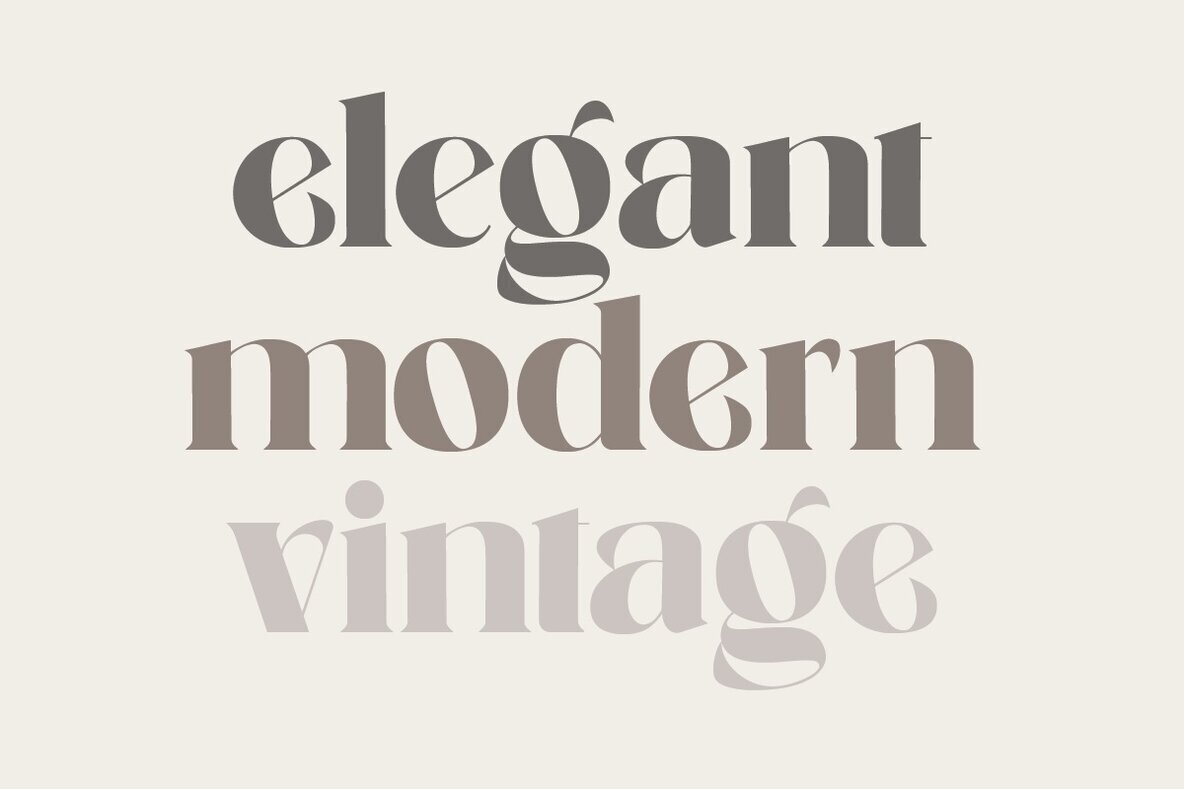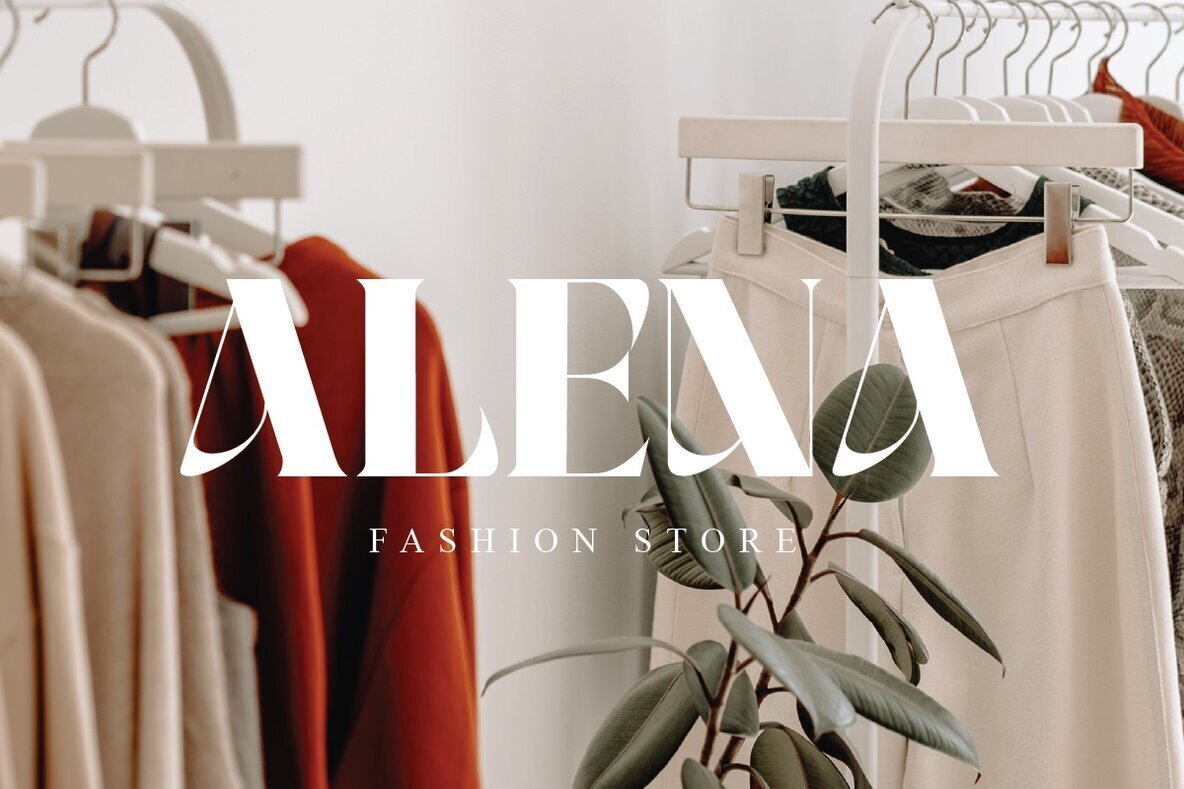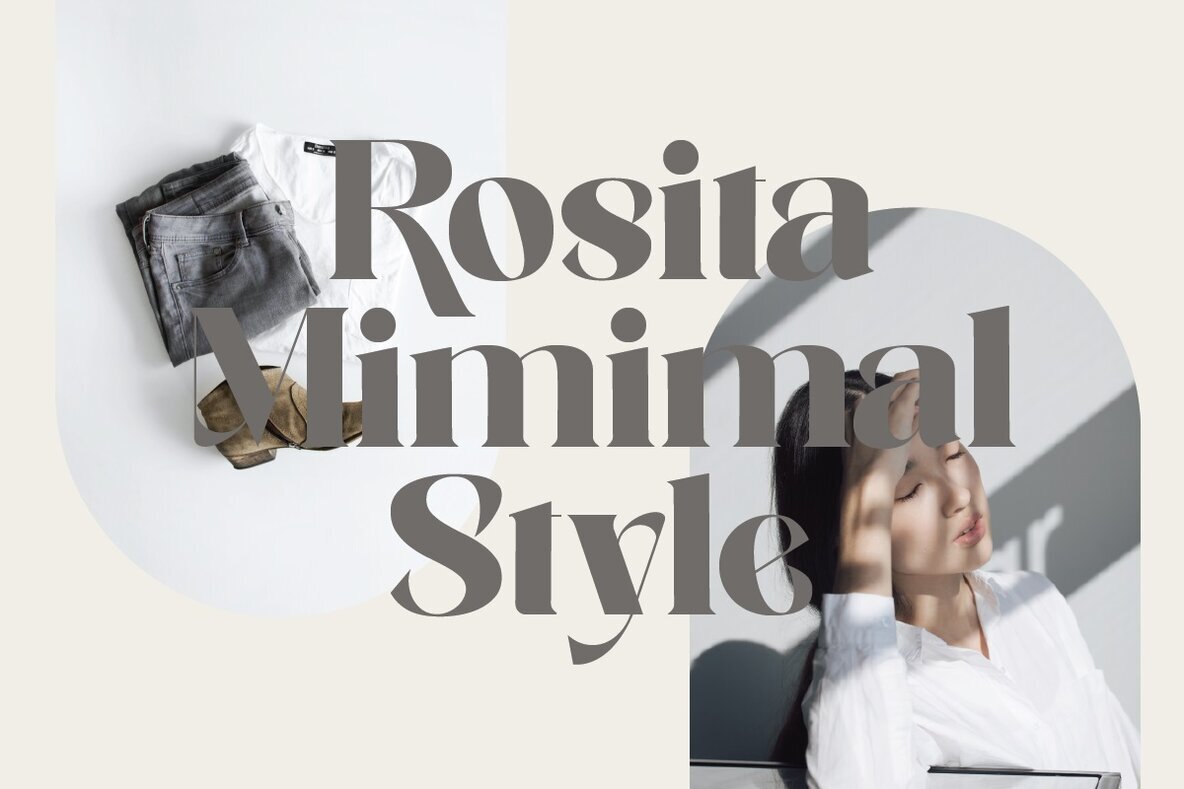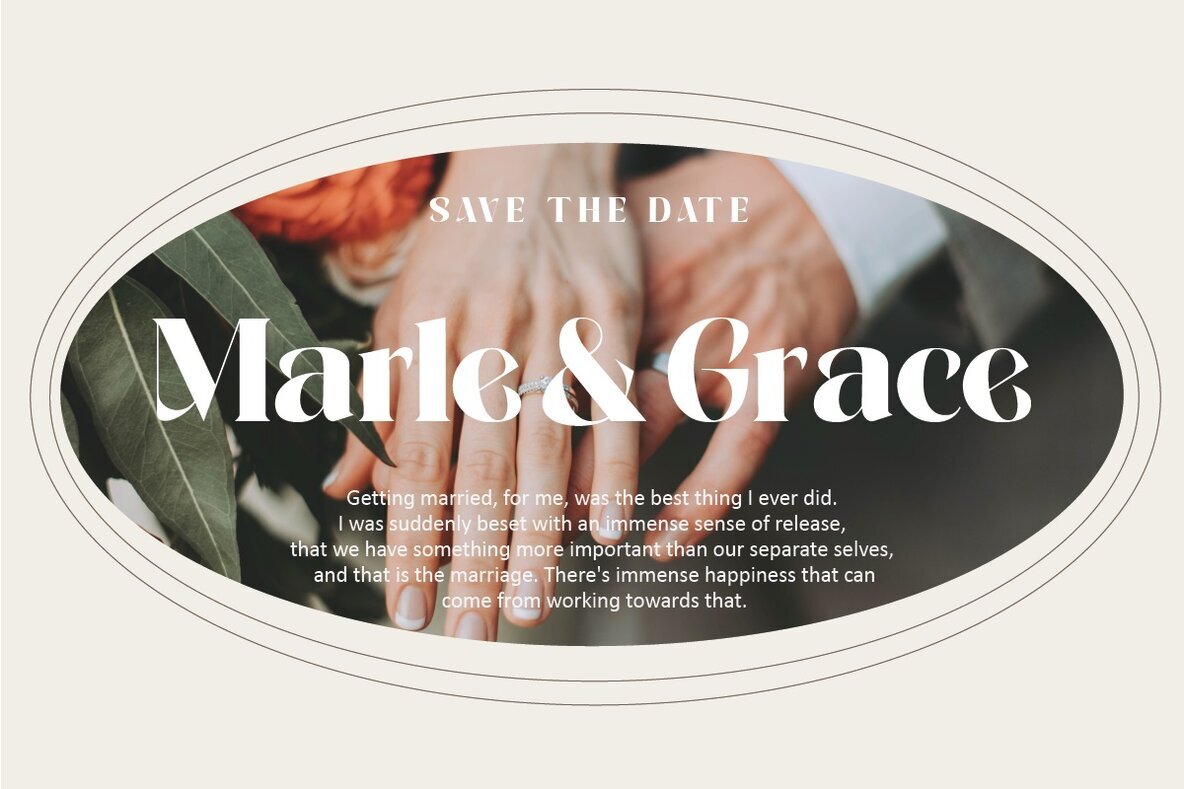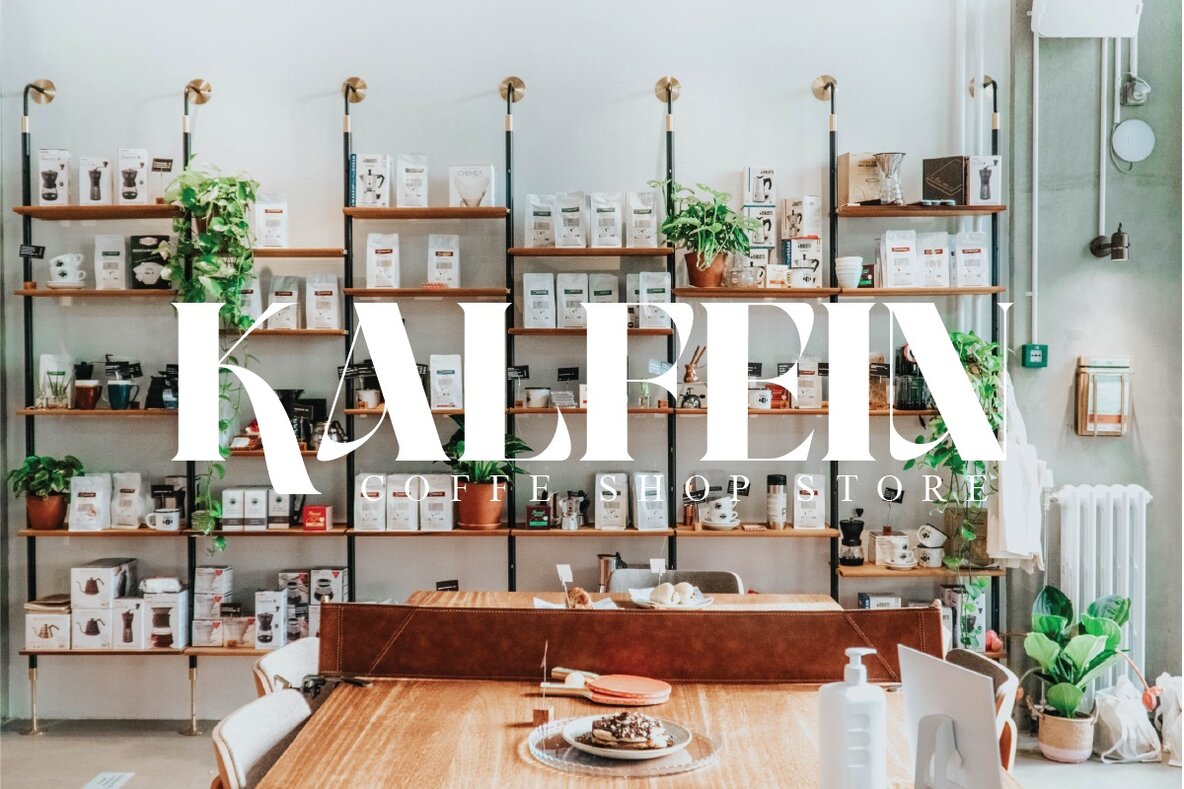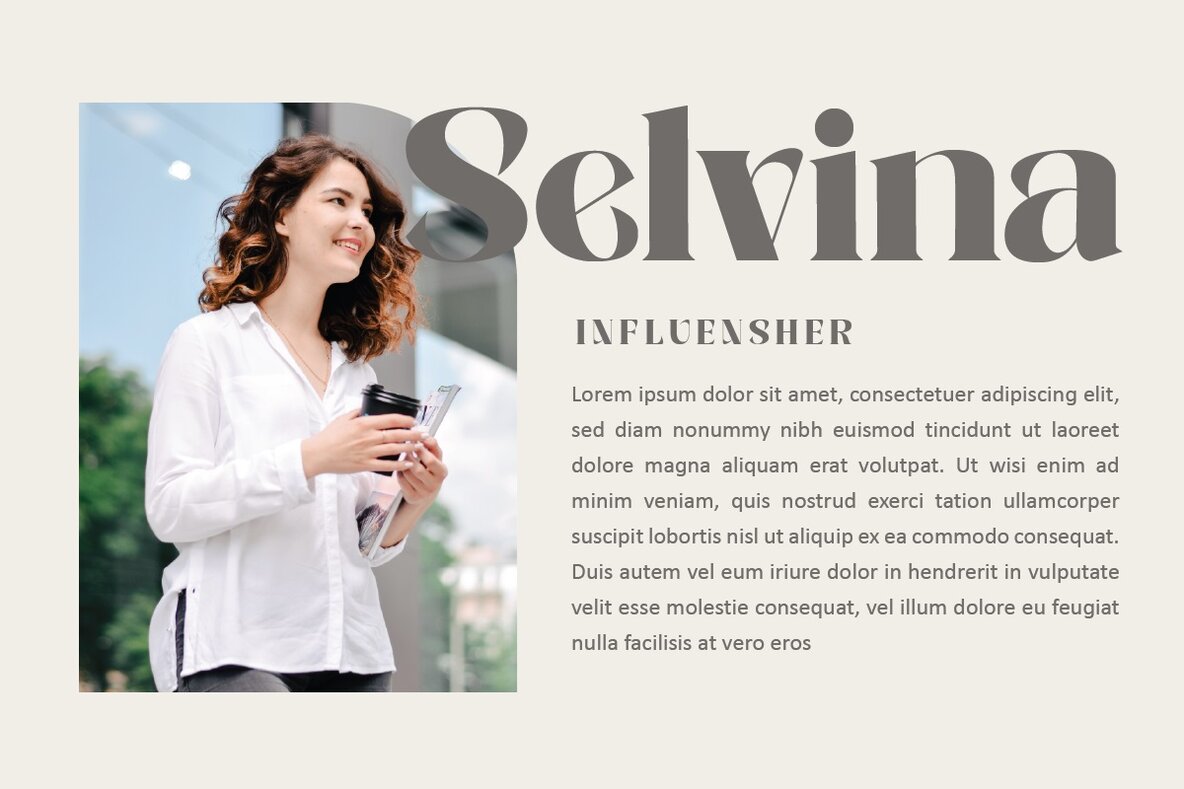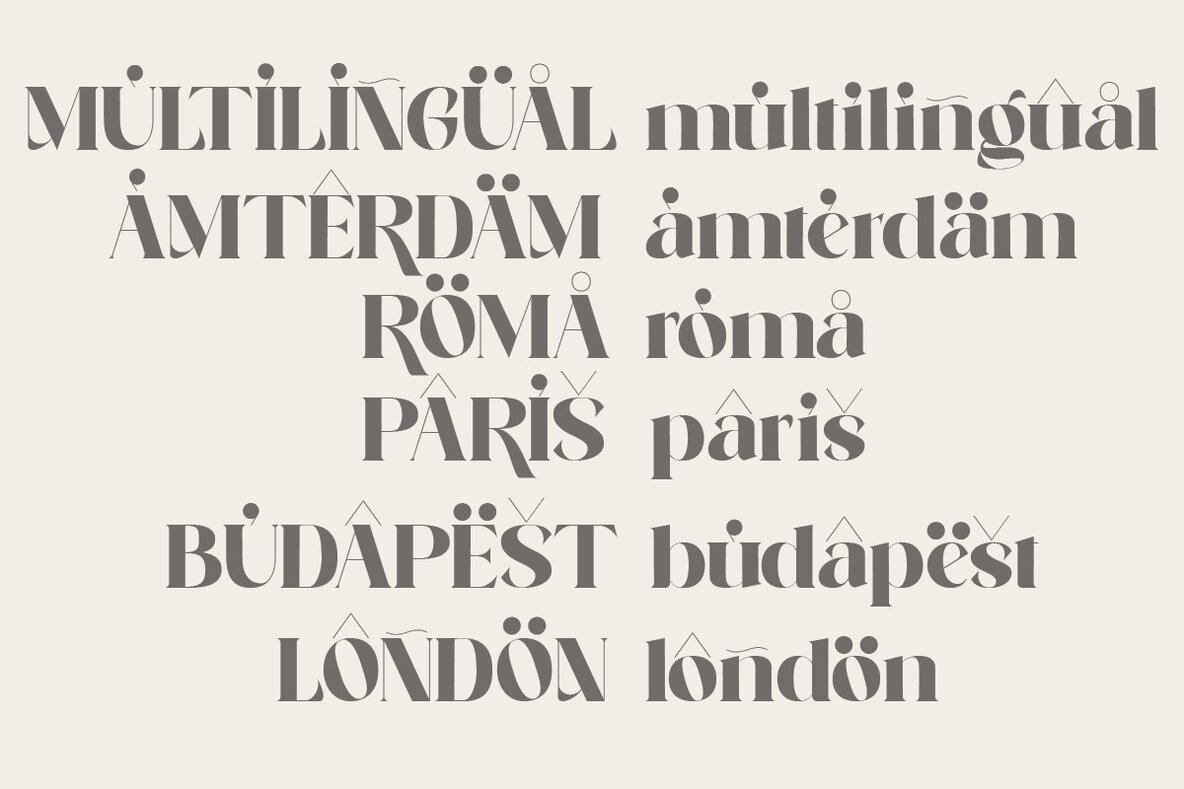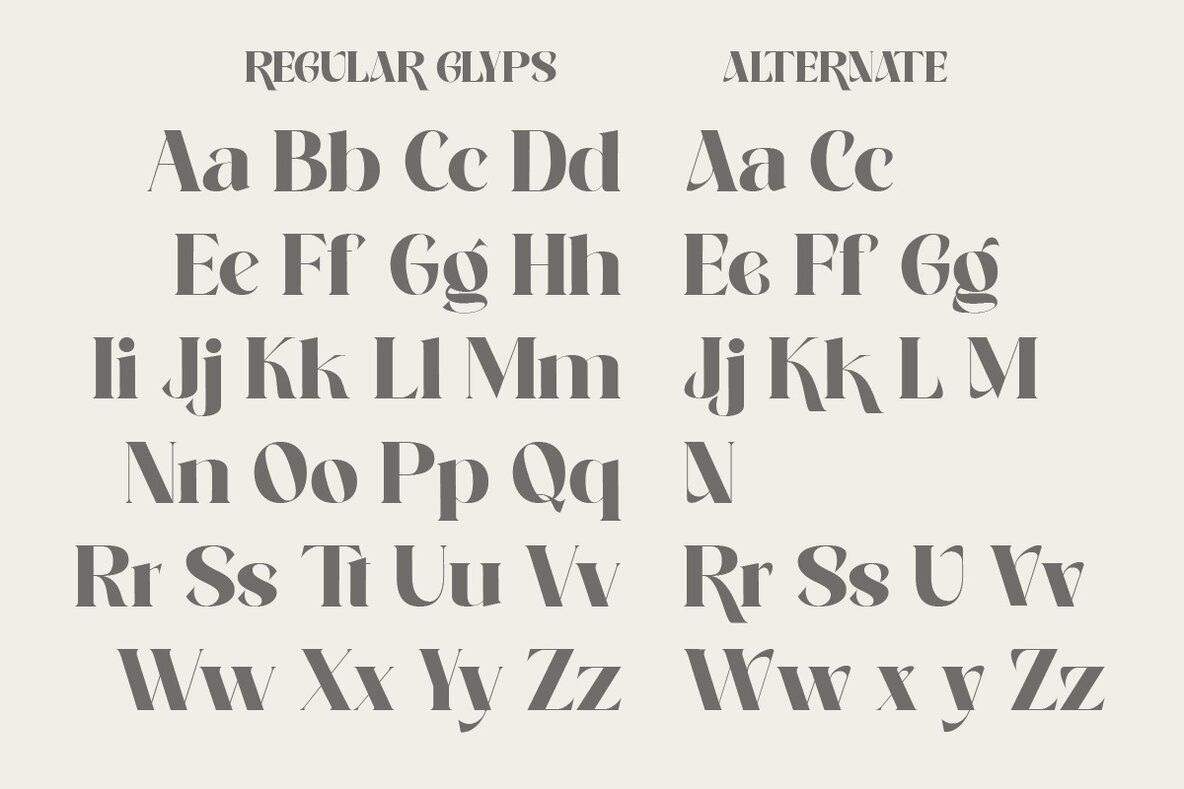
Kalsey Font
Kalsey Bold
Kalsey Modern offers a visually compelling serif font designed for diverse applications ranging from editorial projects to logo design. With exquisite ligature and special glyph options, this typeface enhances creativity, whether used prominently or subtly. Its versatility makes it ideal for projects such as clothing branding, product packaging, and magazine headers, as well as stylish text overlays on images. The font supports multiple languages, enabling designers to approach international projects with ease.Kalsey Modern: Bold Serif with Elegant Details